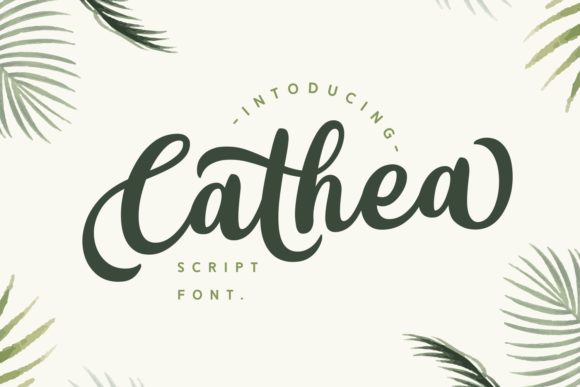
Dive into a world of breathtaking beauty with Cathea Font, a script font that exudes a captivating charm like no other. Its bold, curvy strokes and playful characters ignite a sense of wonder and joy, inviting you to create masterpieces that captivate and inspire.
With Cathea, your words become art. This elegant font dances across the page, adding a touch of whimsy and sophistication to every project. Its friendly appearance beckons readers to delve into your content, promising an experience that's both enjoyable and unforgettable.
Whether you're designing logos, crafting invitations, or creating social media posts, Cathea Font is your perfect partner. Its versatility knows no bounds, allowing you to effortlessly elevate your designs and make a lasting impression.
Don't settle for ordinary fonts. Embrace the extraordinary with Cathea Font. Its enchanting curves and playful spirit will transform your creative vision into a reality. Let your imagination soar and embark on a journey of artistic expression like never before.